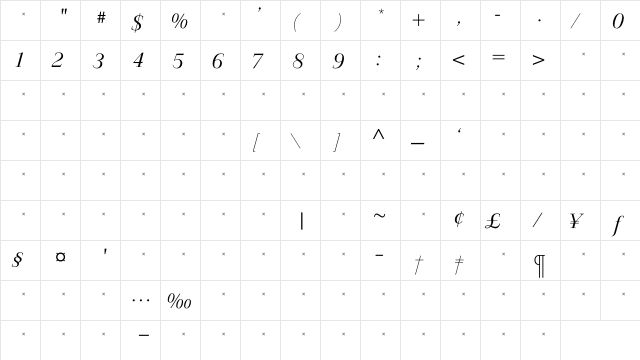
JardineLightItalicTab Regular
Design Context for JardineLightItalicTab Typeface
JardineLightItalicTab is a composed and adaptable typeface that performs quietly and consistently across a wide range of design contexts. The dynamic lean of this cut emphasises speed and emphasis in any layout. The delicate stroke weight brings airiness and refinement to layouts.
Pro Tip: Use JardineLightItalicTab for emphasis, pull quotes, and subheadings where its slanted energy can add rhythm to the layout.